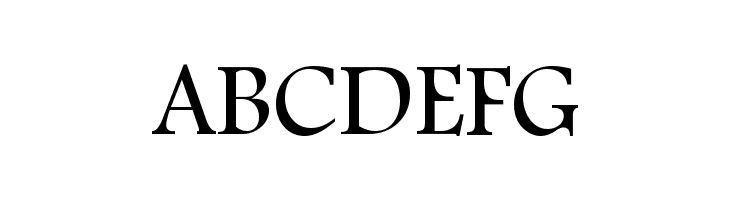
Valentina-Regular Font
A classic serif font with high contrast and elegant design.
Nobile Medium Font
A modern sans-serif font with balanced proportions and smooth curves.
Golf Font
A classic serif font with high contrast and elegant design.
Amood IV Font
A classic serif font with elegant strokes and balanced contrast, suitable for diverse applications.
Fanni II Font
A classic serif font with elegant, sharp serifs and balanced proportions.
Secular One Regular Font
A modern, bold sans-serif typeface with a clean and uniform design.
Atom Font
A classic serif font with elegant, sharp serifs and balanced proportions.
Lailaa Font
A classic serif font with elegant curves and a refined appearance.
Ohod I Font
A classic serif font with elegant strokes and multilingual support.
Tabatha Bold Font
A bold, playful handwritten font with a casual and friendly style.
Morbodoni Font
A bold, high-contrast serif font with strong, elegant strokes.
AlHadari-Medium Font
A clean, modern font with balanced structure and consistent stroke width.
Vollkorn Medium Italic Font
A medium-weight, italic serif font with elegant curves and classic style.
Tabatha Normal Font
A playful, handwritten font with quirky, irregular strokes.
Al-HadariBold Font
A bold, modern font with geometric shapes and clean lines.
Hopeful giraffe Demo Font
An ultra-thin, elongated font with a whimsical, modern style.
Love of Yellow Regular Font
A lively, cursive font with a handwritten style, perfect for personal and elegant designs.
monobit Font
A pixelated, monospaced font with a retro digital aesthetic.
May Lova Font
A playful and elegant handwritten font with smooth, flowing lines.
Wincosin Thin Font
A thin, decorative font with elegant curves and modern flair.